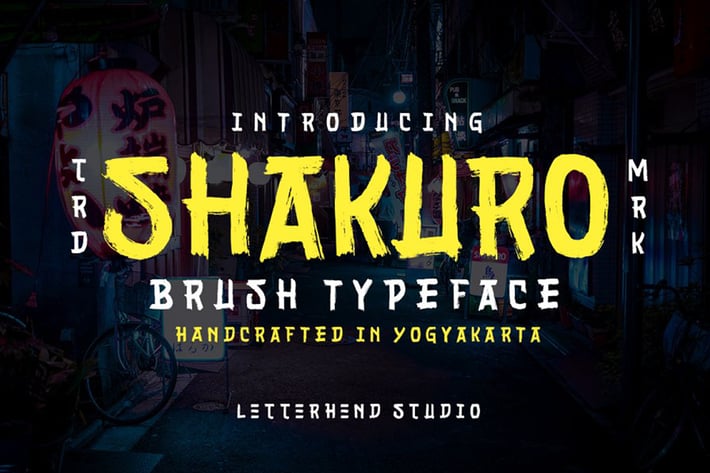
Shakuro - Brush Typeface
letterhend
Introducing, Shakuro. As you can see, this brush typeface has unique letterform inspired from japanese kanji typography. Very suitable to use for headline, title, logo or anything especially related with japan or asian theme.
+ uppercase & lowercase (alternates)
+ numbers and punctuation
+ multilingual